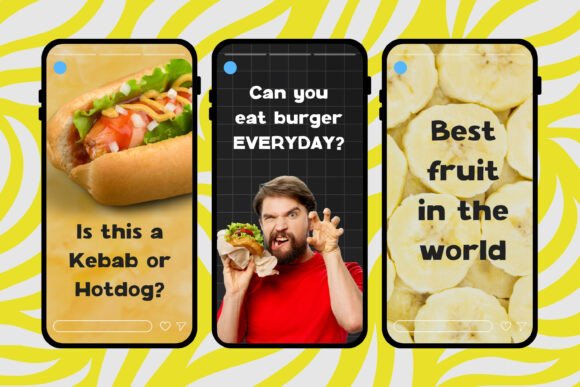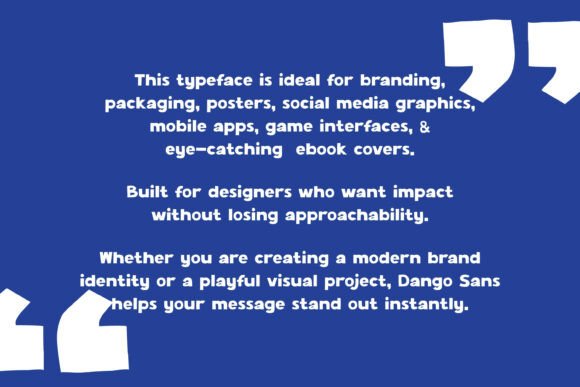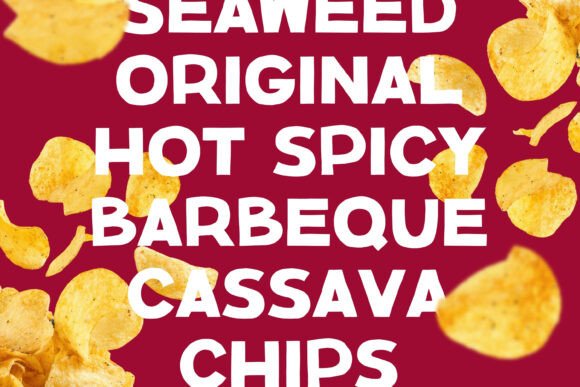
The Design Moment That Stole My Heart: Discovering Dango Sans Font
I still remember the design project that led me to fall in love with Dango Sans Font. I was working on a branding project for a trendy new café, and I was struggling to find the perfect font that would capture the warm and inviting atmosphere of their space. The client wanted something that would stand out, yet feel approachable and friendly. After hours of scouring through font libraries, I stumbled upon Dango Sans, and it was like a lightbulb went off! The soft, rounded forms and chunky weight instantly grabbed my attention, and I knew I had found the perfect fit.
Here’s what I’m obsessed with about Dango Sans Font:
• ✨ Warm and inviting tone: Dango Sans has a unique ability to feel both bold and approachable at the same time.
• ✅ Perfect for attention-grabbing headlines: The chunky weight and soft rounded forms make it perfect for titles that need to stand out.
• 💬 Expressive and lively feel: The subtle imperfections in the font add a human touch, making every headline feel full of energy.
And, a few quirks to keep in mind:
• 🤔 Limited use in body text: Due to its chunky weight, Dango Sans might not be the best choice for longer blocks of text.
• ⚠️ Some glyphs may require manual adjustment: Depending on the platform or software used, some glyphs might require manual adjustment for optimal results.
The Story Behind Dango Sans
Dango Sans was designed with the intention of creating a font that would bring warmth and personality to bold visuals. The designer, inspired by the world of food and beverage branding, aimed to craft a font that would feel inviting and memorable. With its soft rounded forms and chunky weight, Dango Sans has become a go-to choice for designers looking to add a touch of whimsy to their work.
What is Dango Sans best used for? Dango Sans is perfect for bold visuals, F&B branding, packaging, menu highlights, promotional materials, subtitles for video content, event advertisements, posters, and game UI.
Can I use Dango Sans for body text? While Dango Sans can be used for body text, its chunky weight might make it less suitable for longer blocks of text. It’s best used for titles, headings, or emphasis.
Is Dango Sans suitable for digital use? Yes! Dango Sans is designed to be versatile and works well in both print and digital environments.